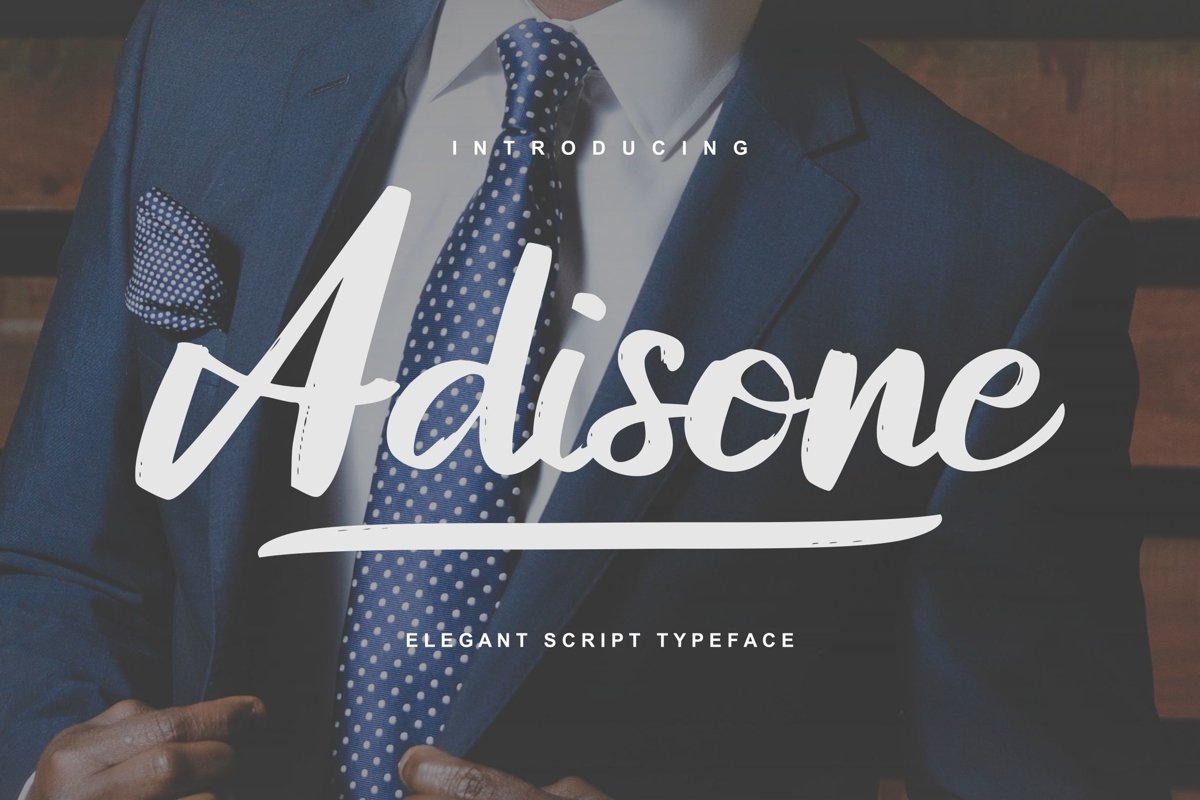
Adisone | Elegant Script Typeface
Adisone
**Adisone | Elegant Script Typeface** with a calligraphy style, So beautiful on invitation like greeting cards, branding materials, business cards, quotes, posters, and more!
* Tons of glyphs
* Alternates and Ligatures
Adisone | Elegant Script Typeface example image 1